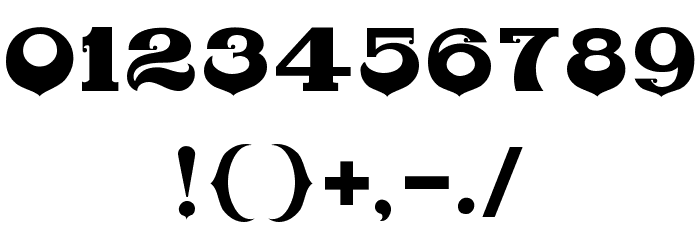
Ponnala Font
Ponnala Description
This font exhibits a bold and dramatic style, characterized by its thick, heavy strokes and high contrast between thick and thin lines. The characters have a unique, almost theatrical flair, with exaggerated serifs and curves that give it a distinct personality. The numbers and special characters maintain this boldness, ensuring consistency across all glyphs. This font is designed to capture attention and make a statement, making it ideal for impactful designs.
| Overall Style | Dramatic and Eye-catching |
| Proposed Projects | Ideal for poster designs, branding projects, and headlines where a strong visual impact is desired. |